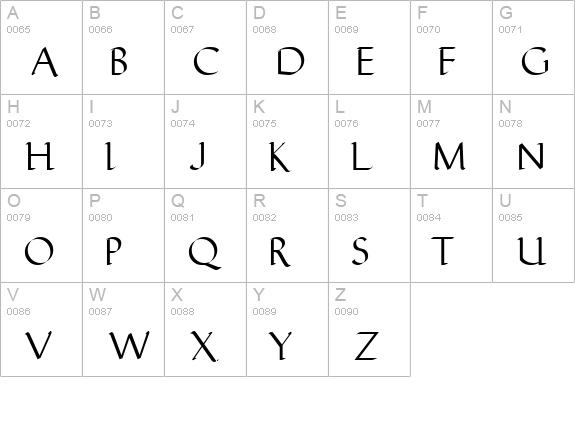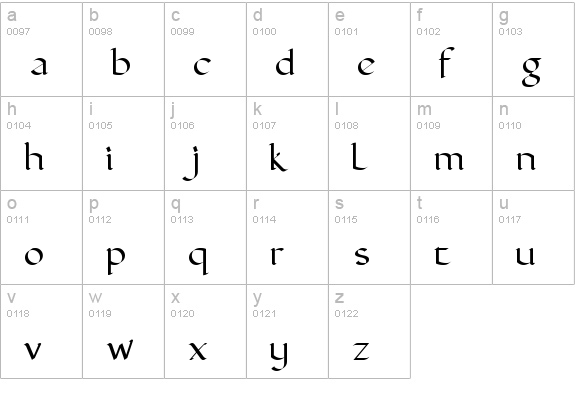
Base:JewishHolidays Font Details
The Base:JewishHolidays font is a beautifully crafted typeface that captures the essence of Jewish traditions and celebrations. With its elegant design and intricate details, this font is perfect for adding a touch of cultural flair to your designs. Whether you are creating holiday greeting cards, event invitations, or promotional materials, Base:JewishHolidays font will bring a unique and festive touch to your projects. What sets this font apart is that it is not only visually stunning but also completely free to use. You can easily download the Base:JewishHolidays font at FontsMarket.com and start incorporating it into your designs right away. Don't miss out on this opportunity to enhance your creative projects with a touch of Jewish heritage – download Base:JewishHolidays font today and let your designs shine!